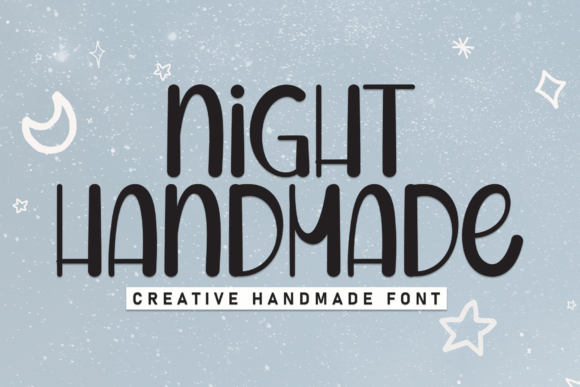
Night Handmade: A Warm, Whimsical Display Font
In the world of digital design, finding a typeface that feels genuinely human can be a challenge. Night Handmade steps in to bridge that gap, offering a handcrafted display font designed to emanate warmth and charm. This typography is not just about arranging letters; it is about capturing the essence of cherished moments. Whether you are a seasoned graphic designer or a hobbyist looking to create something special, this font provides a whimsical allure that standard sans-serif or serif fonts simply cannot match. It invites you to embrace the warmest expressions of life, turning simple text into an emotional experience.
The Essence of Night Handmade Typography
At its core, Night Handmade is characterized by tender strokes and jovial undertones. Unlike rigid, geometric fonts that prioritize uniformity, this typeface celebrates the slight imperfections and organic flow found in actual handwriting. Each character is crafted to feel as though it was drawn with care, adding an extra zest and sparkle to your creations. The result is a visual style that resonates deeply with joy, love, and artistic flair.
This font is tailor-made for specific contexts where emotion matters more than pure legibility at small sizes. It shines brightest when used for crafting exquisite wedding invitations or heartfelt greeting cards. When you choose Night Handmade, you are selecting a tool that communicates sincerity. It transforms a standard "Save the Date" notice into a personal promise and turns a generic birthday wish into a touching message that lingers in the mind of the recipient.
Why Choose a Handcrafted Display Font?
Many creators struggle to convey the right mood using only stock imagery or standard web fonts. A professional layout can still feel cold if the typography lacks personality. Night Handmade solves this problem by injecting immediate warmth into any design project. Its value lies in its ability to evoke nostalgia and intimacy, making it perfect for brands or individuals who want to appear approachable and authentic.
For entrepreneurs and small business owners, particularly those in the lifestyle, wellness, or boutique sectors, this font acts as a silent ambassador for their brand values. It suggests that the product or service behind the design is made with care, much like the font itself. For bloggers and content creators, it offers a way to break up monotony and highlight key sections of a post with a touch of whimsy that engages readers on a deeper level.
Practical Applications for Creators and Professionals
The versatility of Night Handmade extends far beyond just paper goods. While it is ideal for physical print projects, its digital applications are equally robust. Here are some realistic ways you can integrate this delightful typography into your workflow:
- Wedding Stationery: From the main invitation suite to thank-you notes, this font sets a romantic and joyful tone. It pairs beautifully with floral illustrations and soft watercolor backgrounds.
- Greeting Cards and Mementos: Use it for anniversary cards, baby announcements, or graduation congratulations. The tender strokes make every word feel like a hug.
- Social Media Graphics: Create eye-catching Instagram stories or Pinterest pins where the headline needs to pop with personality. It works exceptionally well for quotes about love, family, and happiness.
- Brand Logos and Packaging: If you run a bakery, a candle shop, or a boutique clothing line, incorporating Night Handmade into your logo can instantly communicate a handmade, artisanal quality.
- Personalized Gifts: Design custom mugs, tote bags, or wall art. The whimsical allure of the font makes these items feel unique and one-of-a-kind.
Designing with Joy and Artistic Flair
When extending your creative horizons with this font, it is important to understand how it interacts with other design elements. Because Night Handmade has such strong character, it often works best as a display font rather than for body text. This means it should be used for headlines, titles, and short phrases where its decorative nature can be fully appreciated.
To get the most out of it, pair it with a clean, neutral sans-serif font for longer paragraphs. This combination ensures readability while allowing the whimsical allure of the main title to shine. For example, use Night Handmade for the couple's names on a wedding invite, but switch to a simpler font for the venue details and time. This balance creates a sophisticated look that is both charming and functional.
Considerations Before You Start
While Night Handmade is a powerful tool for adding zest to your designs, there are a few practical things to consider before downloading or purchasing it. First, assess the context of your project. Is the primary goal to inform quickly, or to inspire emotion? If speed and clarity are paramount, a simpler font might be better suited for the bulk of your text.
Second, think about your audience. While the font appeals to a wide range of adults aged 20โ50, including educators, freelancers, and marketers, it may not fit formal corporate reports or legal documents. Its jovial undertones are perfect for celebrations and personal connections but might feel too casual for serious financial presentations.
Finally, ensure you have the necessary software to utilize the font effectively. Most modern design tools support custom fonts, but beginners should familiarize themselves with basic kerning and leading adjustments. Sometimes, the natural spacing of a handcrafted font needs a tiny tweak to look perfectly balanced on screen or in print. Taking the time to adjust these details ensures your final design resonates with the highest level of artistic flair.
Bringing Life to Your Projects
Ultimately, the decision to use Night Handmade is about choosing to celebrate the human touch in a digital age. It encourages you to slow down and appreciate the artistry in communication. Whether you are penning a touching message to a loved one or designing artistic mementos for a client, this font serves as a reminder that the smallest details often carry the biggest impact.
By integrating this typeface into your toolkit, you open the door to a world where designs do not just sit on a page but speak directly to the heart. Embrace the opportunity to craft something truly memorable. With its blend of warmth, charm, and whimsical beauty, Night Handmade ensures that every project you undertake radiates the joy and love that define our most cherished moments.